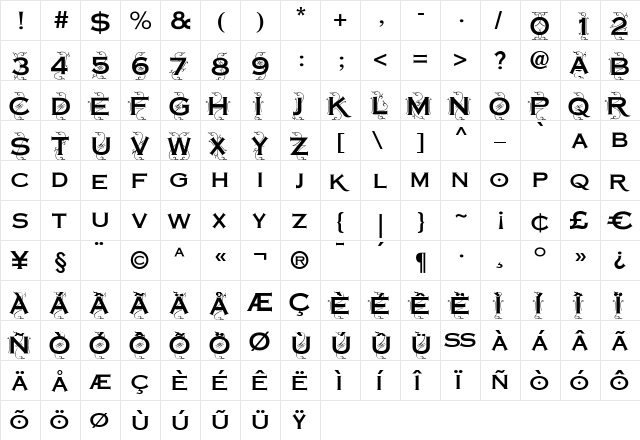
Copperplate Deco Plain Regular
Design Context for Copperplate Deco Plain Typeface
Copperplate Deco Plain offers clean, dependable letterforms without strong stylistic allegiance, making it a practical choice for designers who need flexibility.